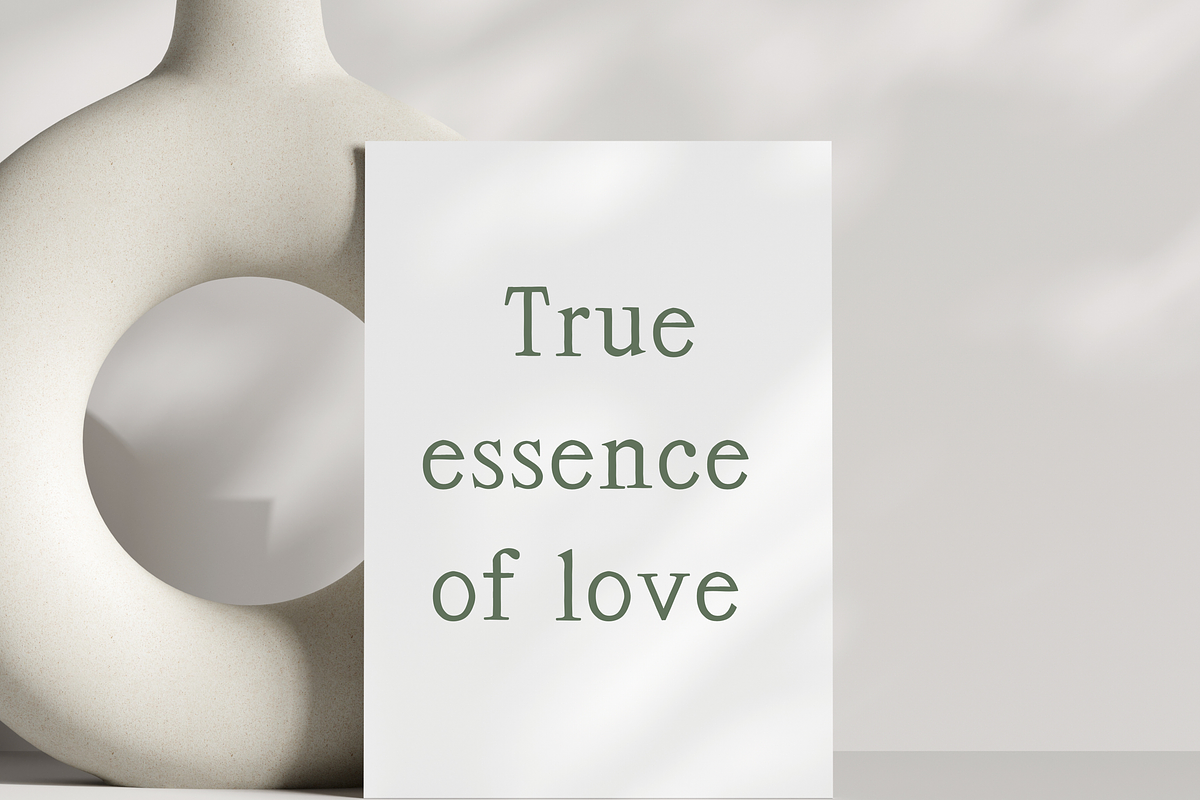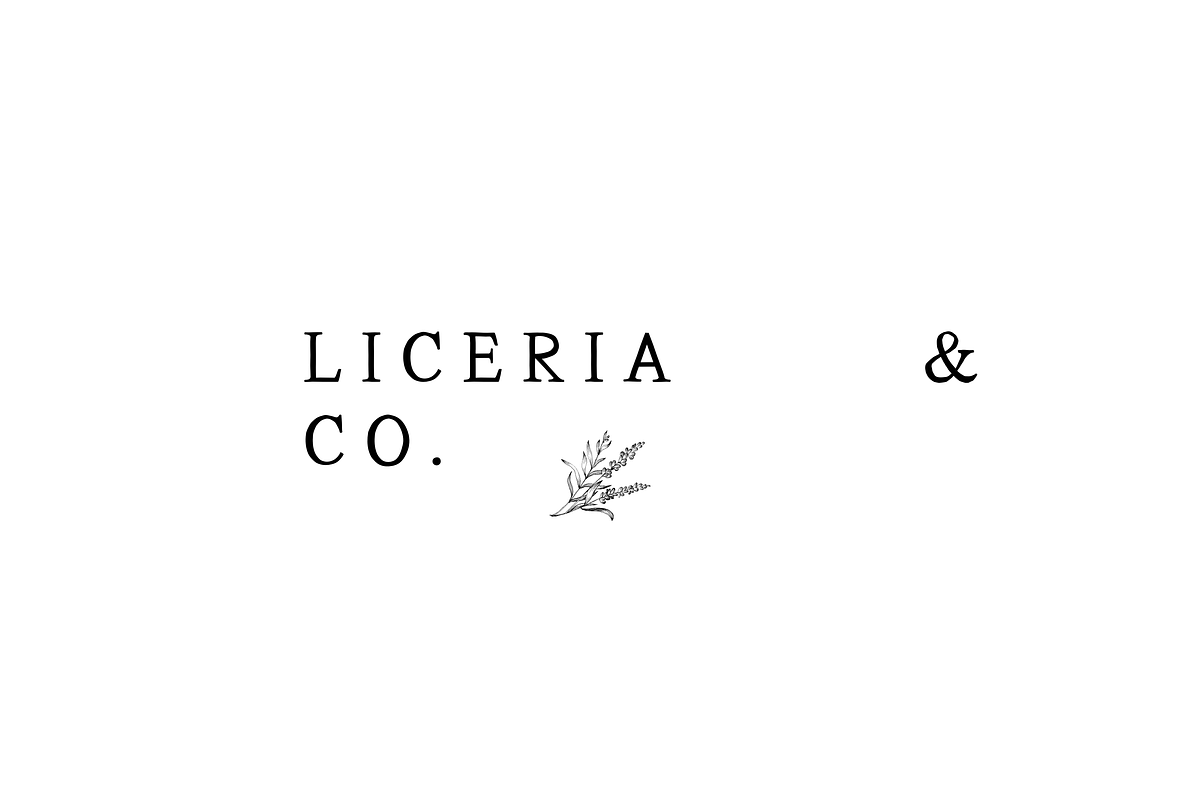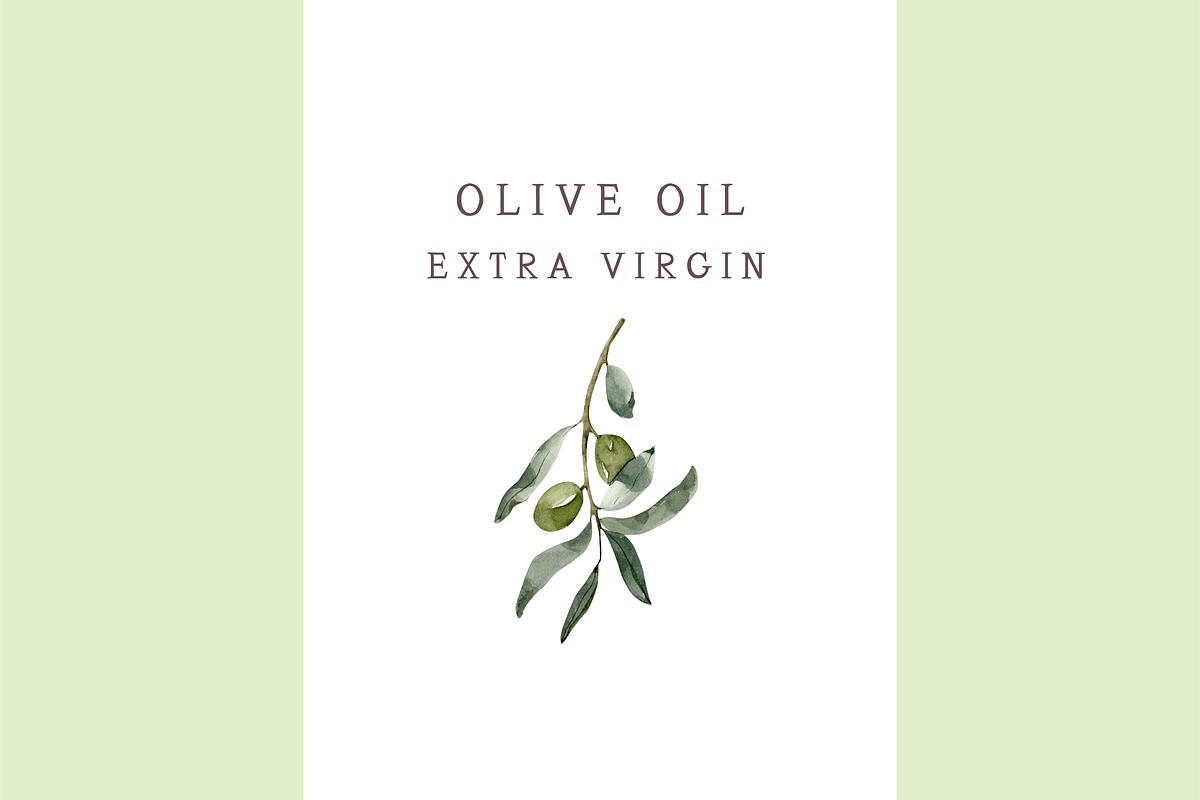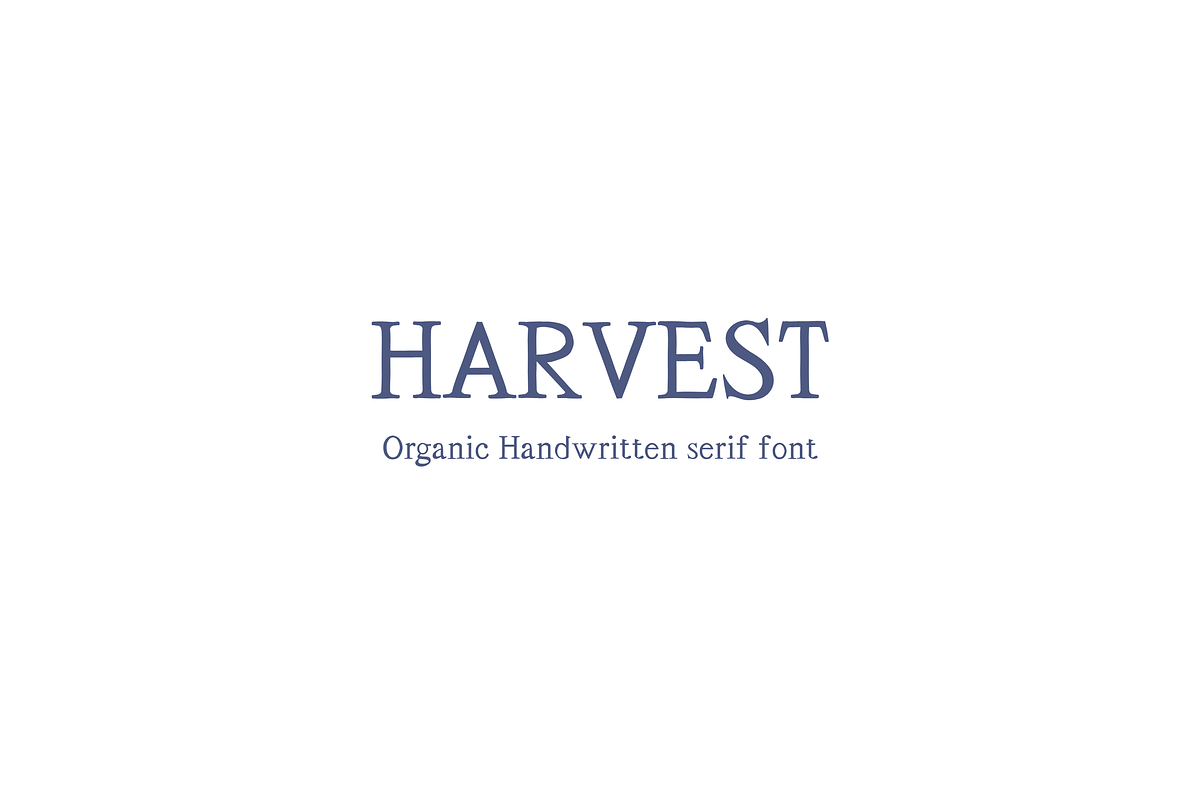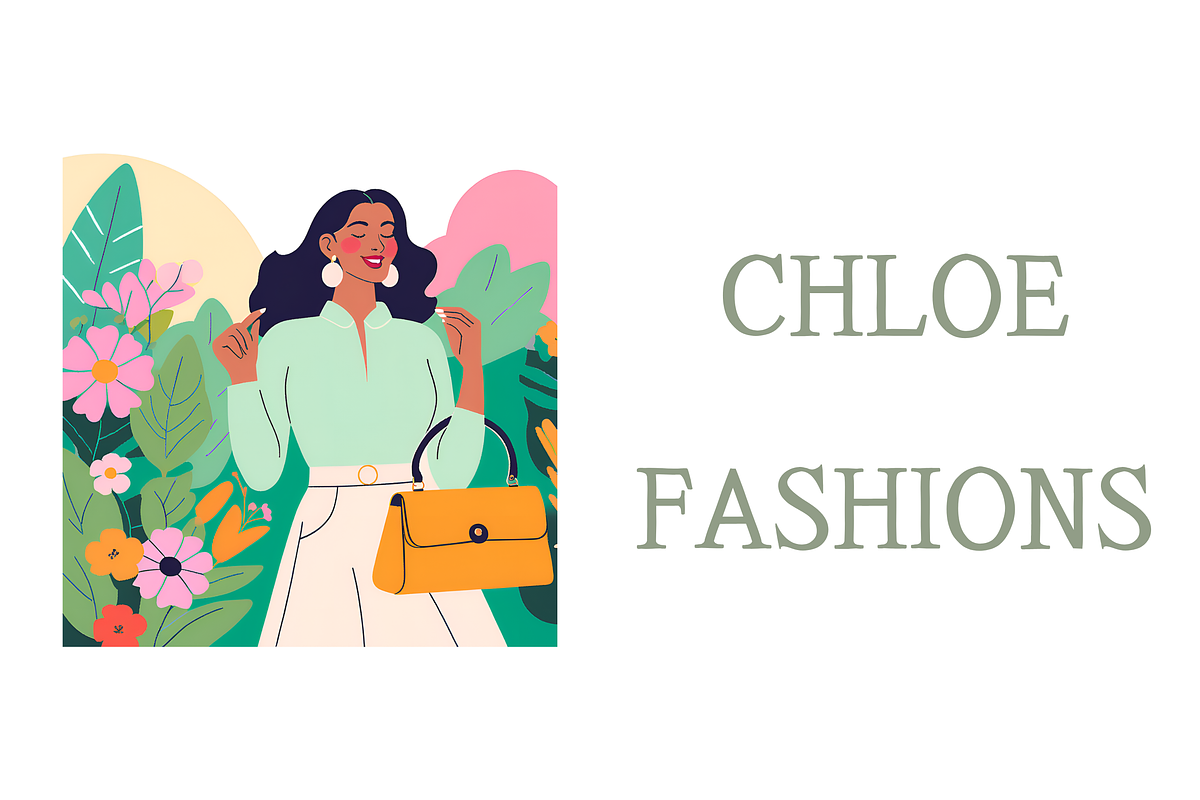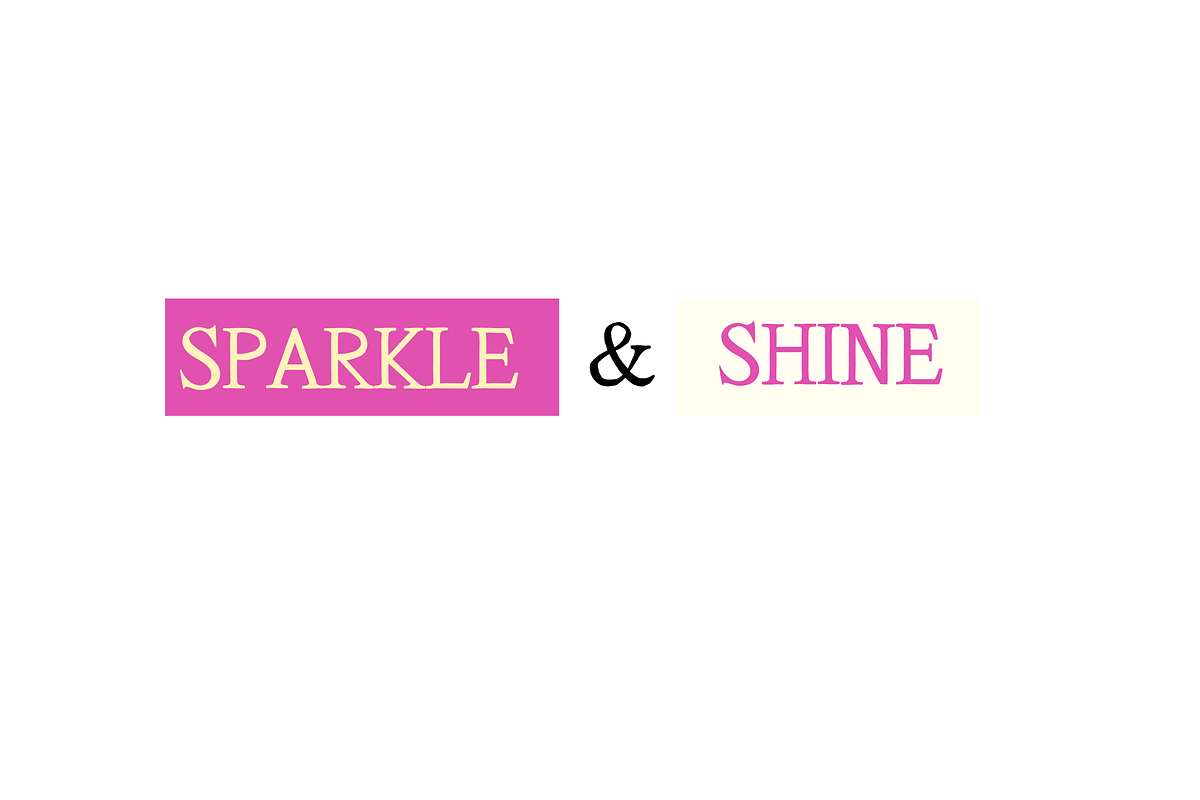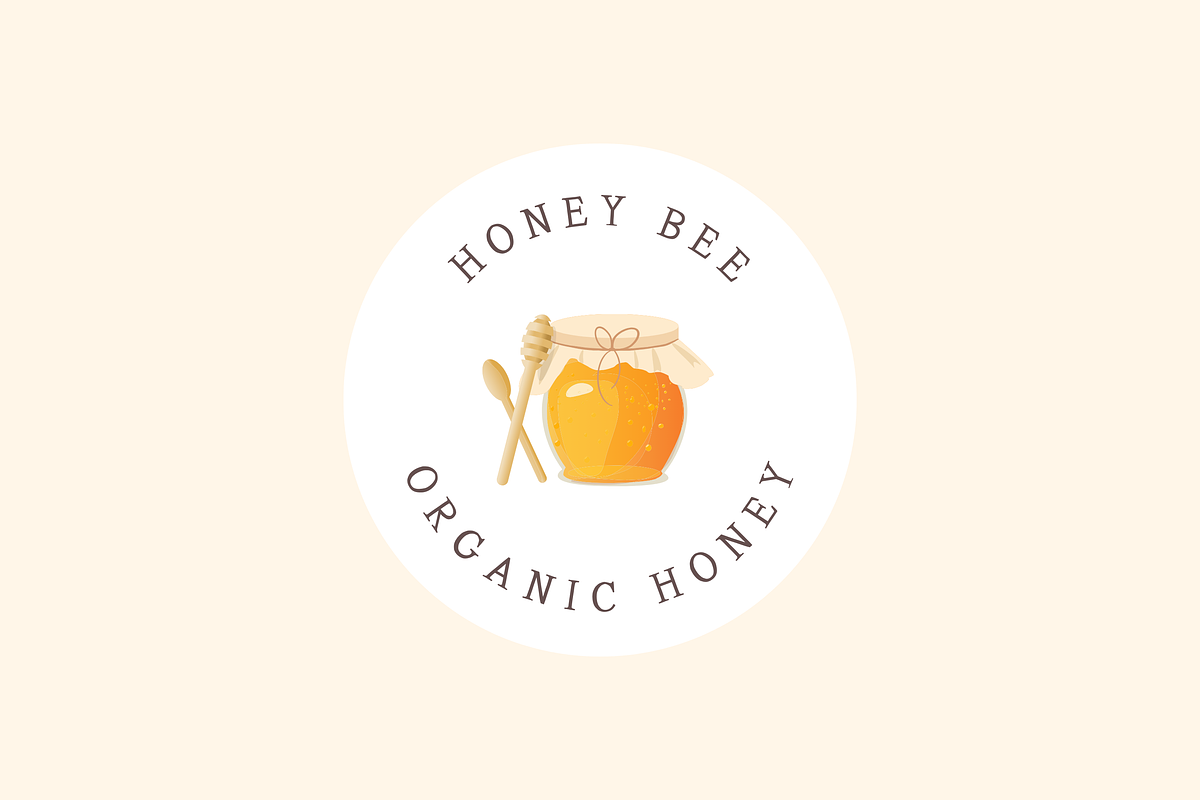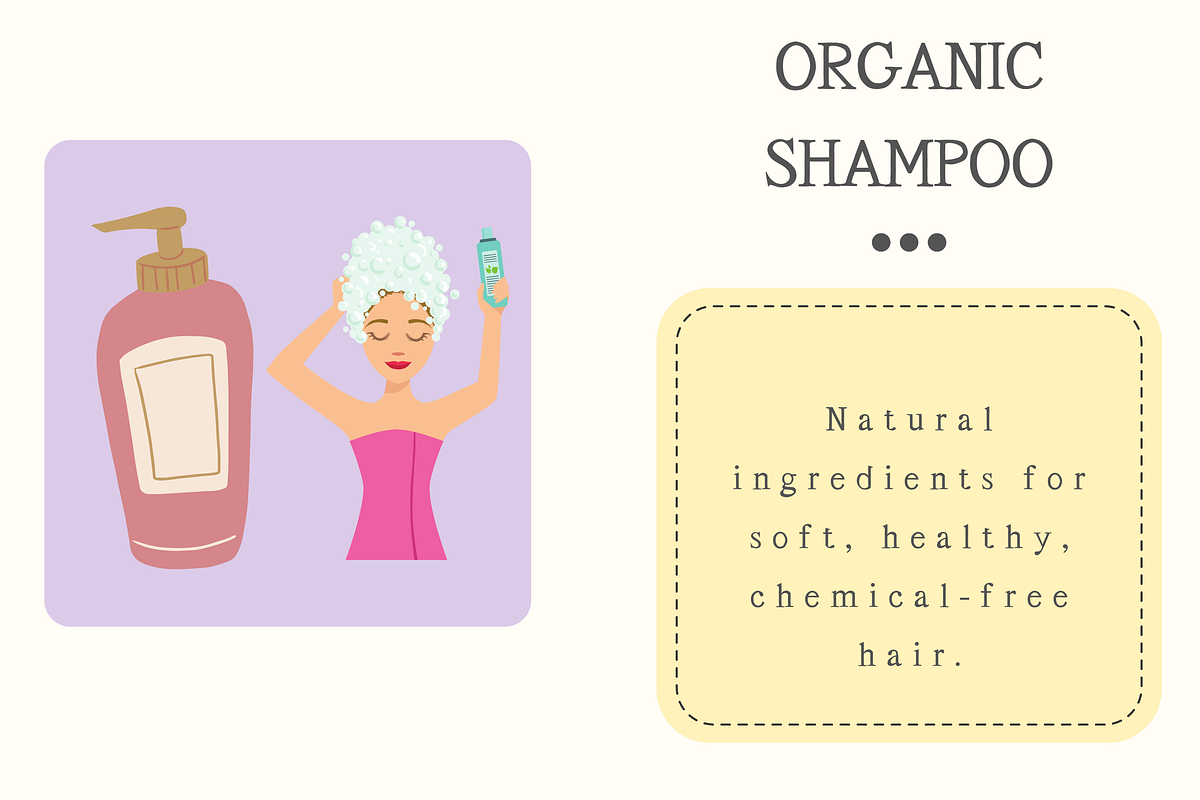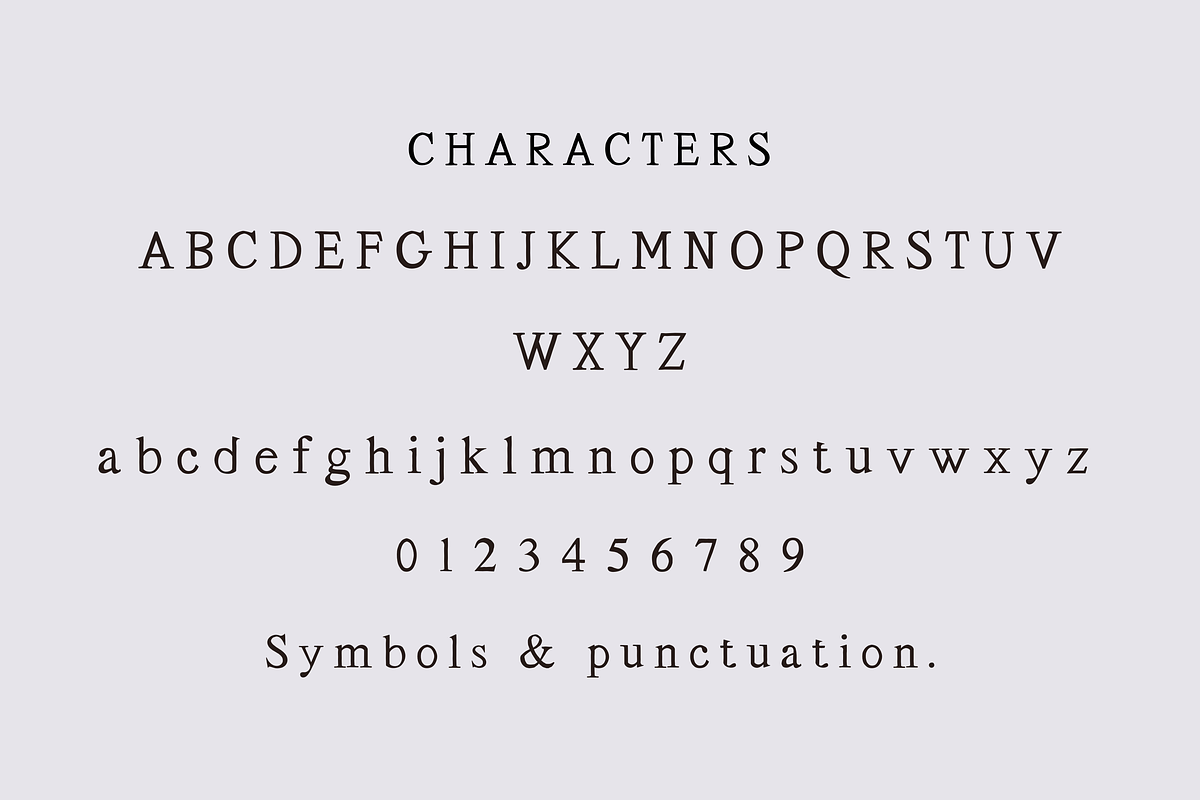
Harvest - Elegant organic serif font
Harvest is a Elegant Organic Handmade Serif Font | Unique Handcrafted Typeface for Branding & Design
Introducing a beautifully handcrafted organic serif font designed to bring a natural, artistic touch to your projects. Inspired by vintage typography and modern minimalism, this font features smooth, imperfect edges and an earthy, hand-drawn feel—perfect for branding, logos, wedding invitations, packaging, and more!
Whether you're a designer, business owner, or creative enthusiast, Harvest adds a timeless and organic aesthetic to any design. Elevate your brand with the charm of handcrafted typography!
💡 Perfect For: ✔ Branding & Logos ✔ Invitations & Stationery ✔ Packaging & Labels ✔ Social Media Graphics ✔ Editorial Design